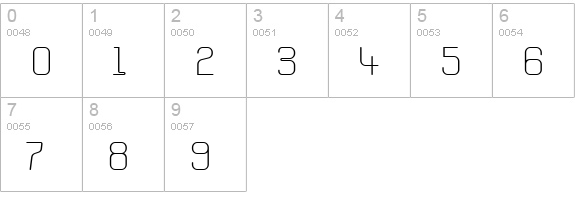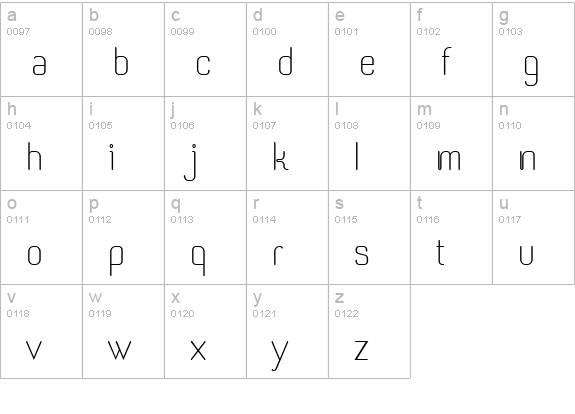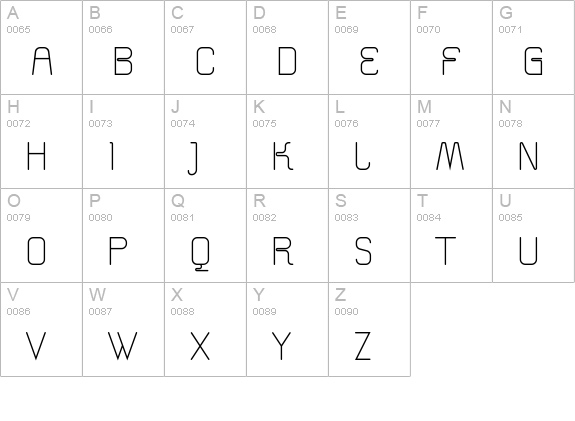
RomeroLight font is a modern and elegant typeface that exudes sophistication and style. With its sleek lines and delicate curves, this font is perfect for adding a touch of class to any design project. Whether you're creating invitations, posters, or branding materials, RomeroLight is sure to make a lasting impression. What's even better is that RomeroLight font is completely free! Yes, you read that right - you can download this stunning font at absolutely no cost from FontsMarket.com. So why wait? Add RomeroLight to your font collection today and elevate your designs to the next level.